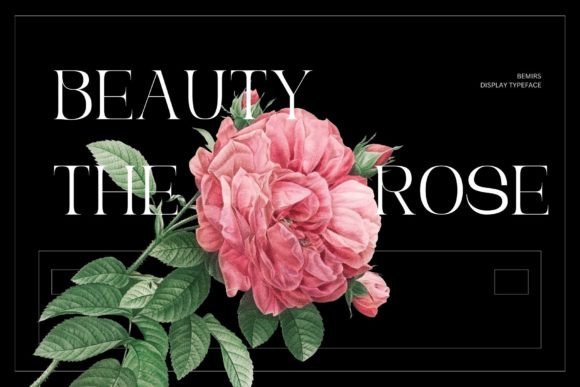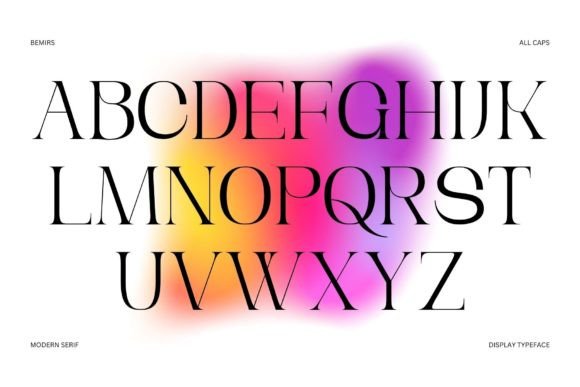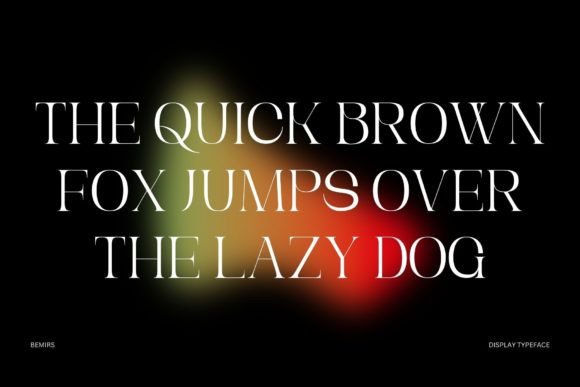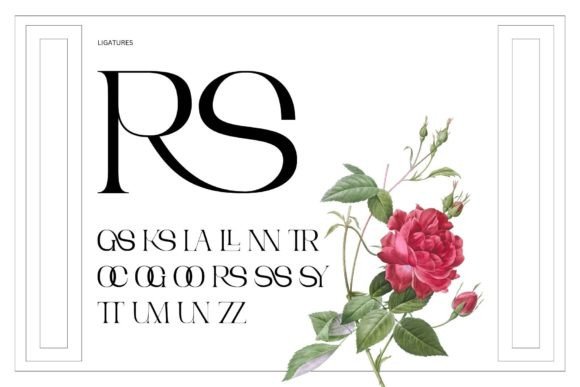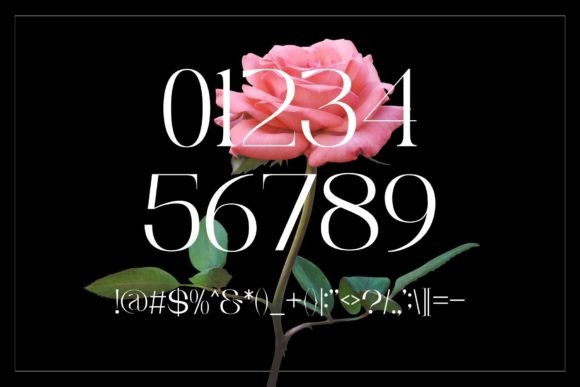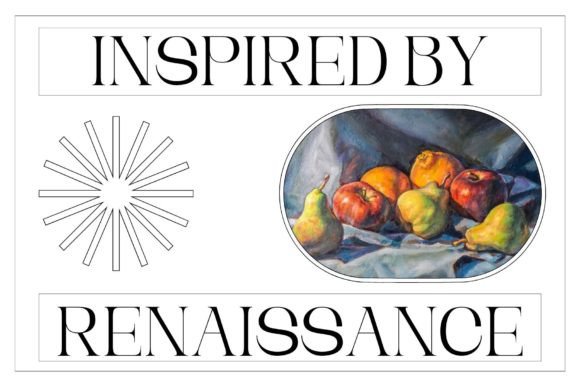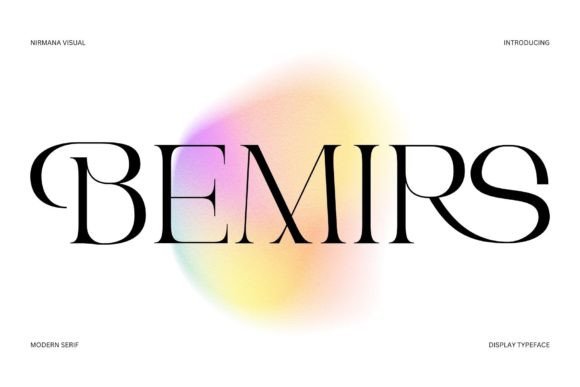
Bemirs Font: A Renaissance-Inspired Typeface for Modern Designers
In the world of typography, fonts play a crucial role in conveying the tone and aesthetic of a design project. For designers and crafters seeking a typeface that embodies elegance, sophistication, and creativity, Bemirs Font is an exceptional choice. Inspired by the Renaissance design era, Bemirs offers a beautiful typographic harmony that elevates various design projects, including logos and branding, social media posts, advertisements, and product designs.
The Renaissance Inspiration
The Renaissance, a cultural and artistic movement that spanned from the 14th to the 17th century, was characterized by a revival of classical Greek and Roman styles. This era saw the emergence of iconic typographers and printers who crafted typefaces that exuded refinement, luxury, and intellectualism. Bemirs Font draws inspiration from this bygone era, incorporating classic elements with a modern twist to create a unique and versatile typeface.
Key Features of Bemirs Font
- Classic yet Modern: Bemirs Font strikes a perfect balance between traditional and contemporary design elements, making it suitable for a wide range of design applications.
- Typographic Harmony: The font’s carefully crafted letterforms and spacing ensure a harmonious visual flow, allowing designers to create stunning text-based designs.
- High Versatility: Bemirs Font is ideal for various design projects, including logos and branding, social media posts, advertisements, product designs, and more.
- Elegant and Sophisticated: The font’s elegant lines, curves, and swashes evoke a sense of luxury, sophistication, and refinement, perfect for designers seeking to add a touch of high-end quality to their work.
Design Applications for Bemirs Font
Bemirs Font is an excellent choice for designers working on various projects, including:
- Logos and Branding: Create a lasting impression with a custom logo or brand identity that exudes elegance and sophistication.
- Social Media Posts: Elevate your social media presence with eye-catching posts that showcase your brand’s personality and style.
- Advertisements: Craft compelling ads that grab attention and leave a lasting impression on your target audience.
- Product Designs: Add a touch of luxury and refinement to your product designs, packaging, and labeling.
Why Choose Bemirs Font?
In a world where typography plays a vital role in design, Bemirs Font stands out as an exceptional choice for designers and crafters seeking a typeface that embodies the essence of the Renaissance era. With its classic yet modern design, typographic harmony, and high versatility, Bemirs Font is an excellent addition to any design project.
By choosing Bemirs Font, designers can:
- Enhance their design portfolio with a unique and sophisticated typeface.
- Streamline their design process with a font that offers a wide range of design applications.
- Elevate their brand’s visual identity with a custom typeface that exudes elegance and refinement.
Bemirs Font is a stunning typeface that brings the essence of the Renaissance design era to modern designers and crafters. With its beautiful typographic harmony, classic yet modern design, and high versatility, Bemirs Font is an excellent choice for various design projects. Whether you’re working on logos and branding, social media posts, advertisements, or product designs, Bemirs Font is sure to elevate your design game and leave a lasting impression on your audience.